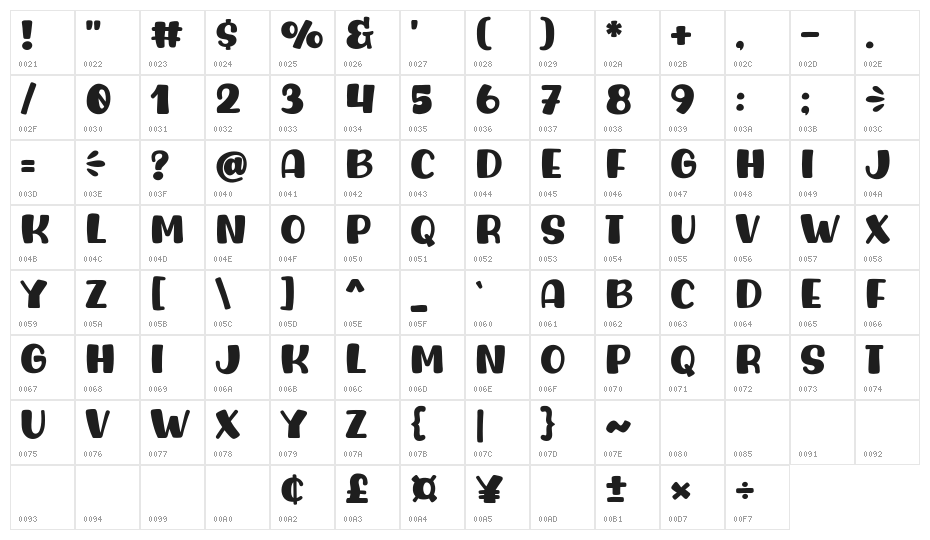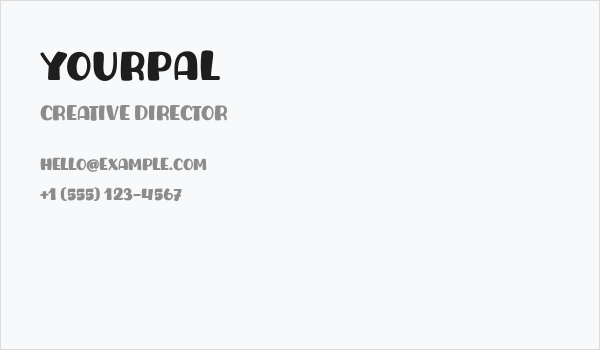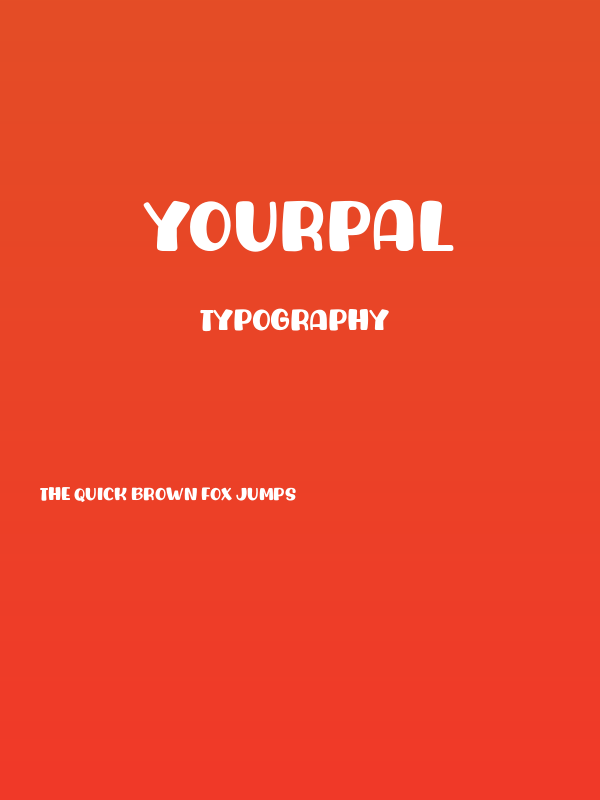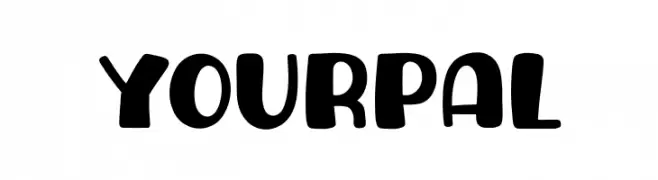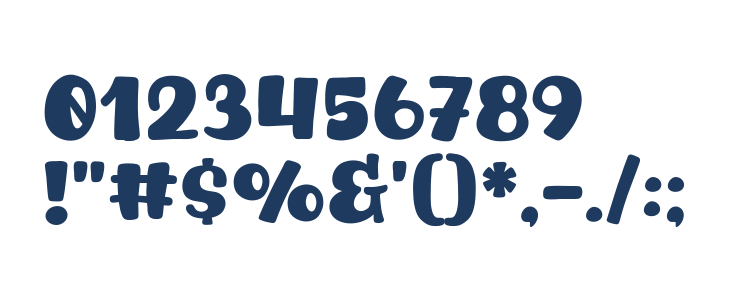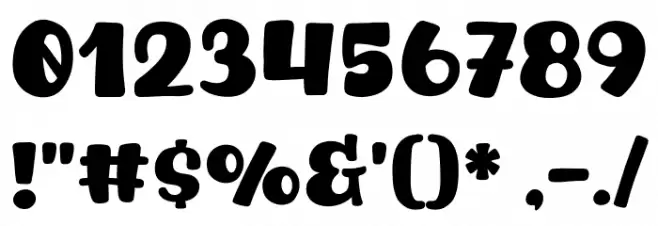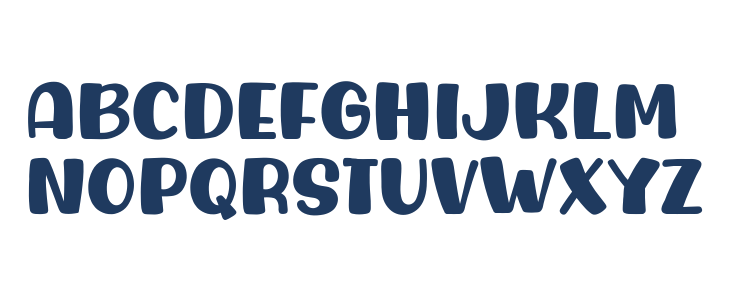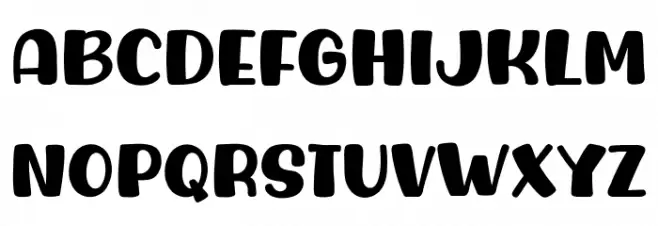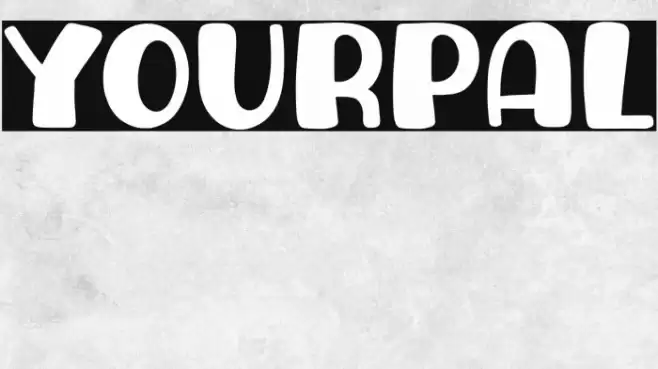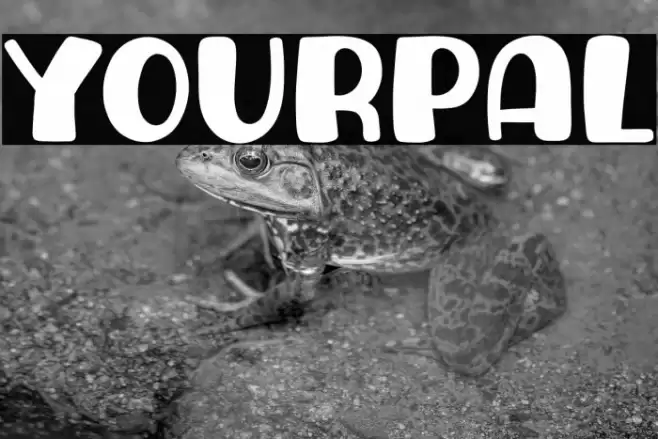
Yourpal Font
Yourpal Description
A bold, playful, rounded sans-serif font with a casual and friendly appearance.
| Overall Style | Casual, Friendly, Playful |
| Use Case | Headlines, Logos, Posters, Children's products |